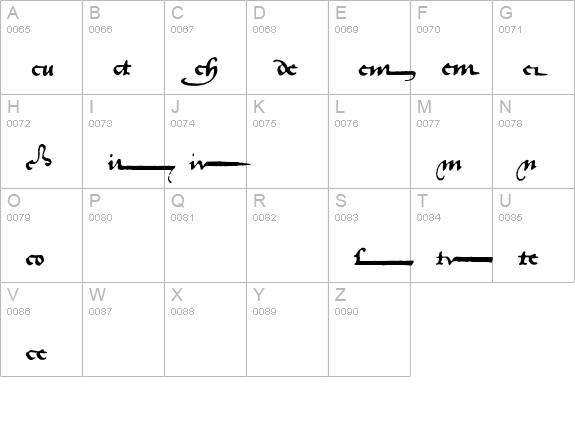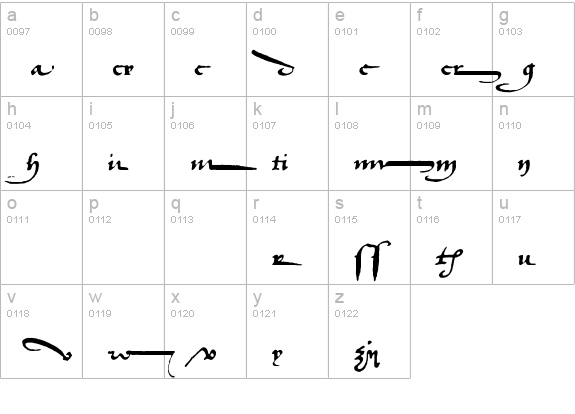
Historical-StAugustinAlternate Font Details
Historical-StAugustinAlternate font is a stunning typeface that exudes an air of sophistication and elegance, making it perfect for projects that require a touch of historical charm. Inspired by classic calligraphy and vintage typography, this font features intricate details and ornate flourishes that add a sense of grandeur to any design. What sets Historical-StAugustinAlternate font apart is its timeless appeal and versatility. Whether used for formal invitations, elegant logos, or historical-themed projects, this font is sure to make a lasting impression. Its graceful curves and intricate details evoke a sense of old-world charm, transporting viewers to a bygone era. And the best part? Historical-StAugustinAlternate font is available for free download at FontsMarket.com. So go ahead and elevate your designs with this exquisite font that seamlessly blends history and modernity. Let Historical-StAugustinAlternate font be the perfect companion for your next project, adding a touch of sophistication and elegance that will leave a lasting impression.